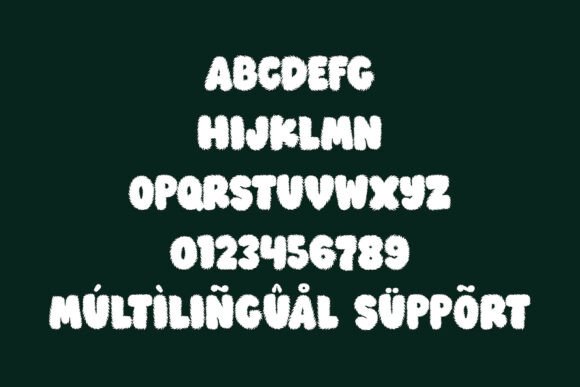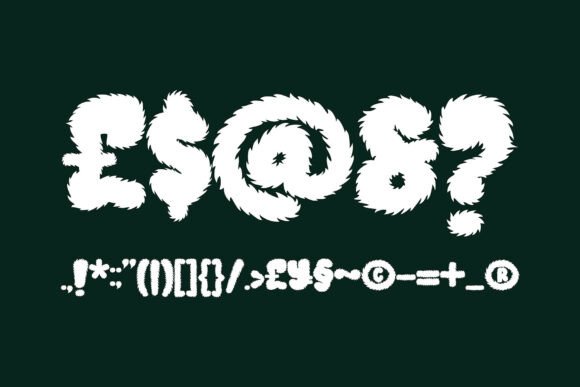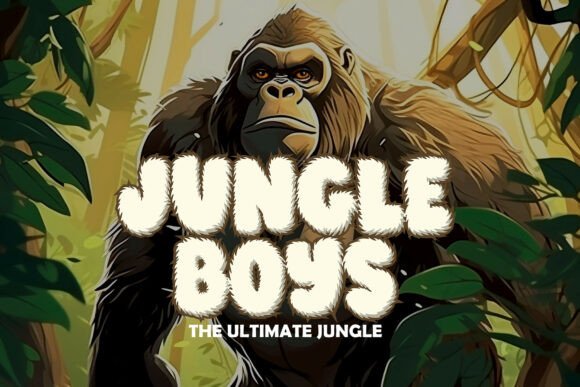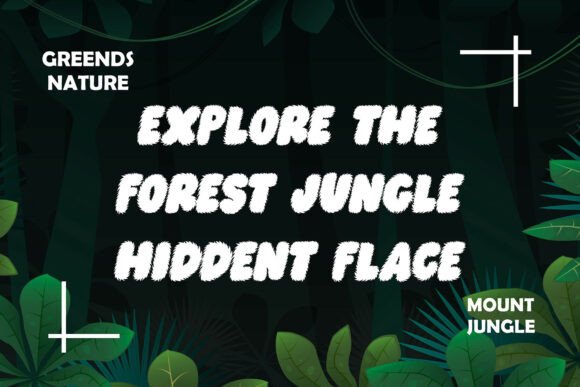
Introduction to Jungle Boys Font
Enter into the vibrant wilderness with Jungle Boys, an audacious display font that draws inspiration from the heart of the jungle itself.
With its mischievous bends and lush, robust strokes, this font promises to instill an essence of fun and exploration into every creative endeavor you undertake From children-themed posters to jungle storybooks, from colourful animations to birthday invitations, and even when it comes to branding elements that brings out the spirit of nature, Jungle Boys holds the potential to reignite creativity in an unthinkable manner.
Key Features of Jungle Boys Font